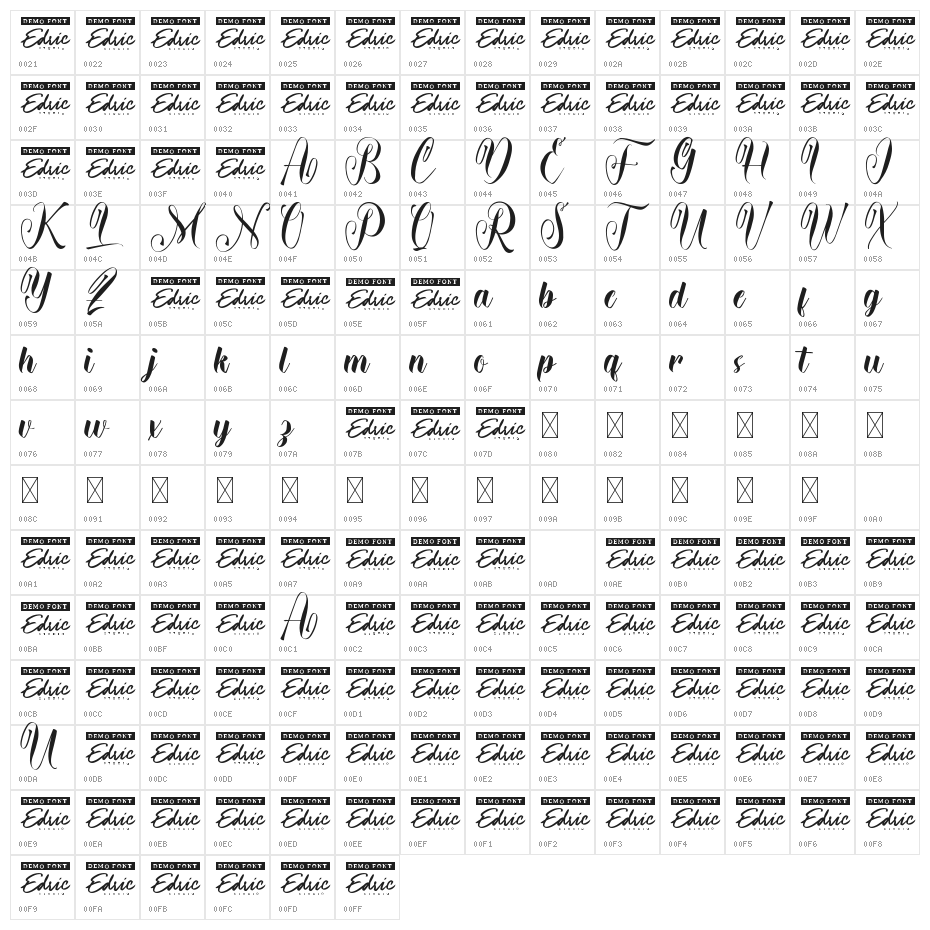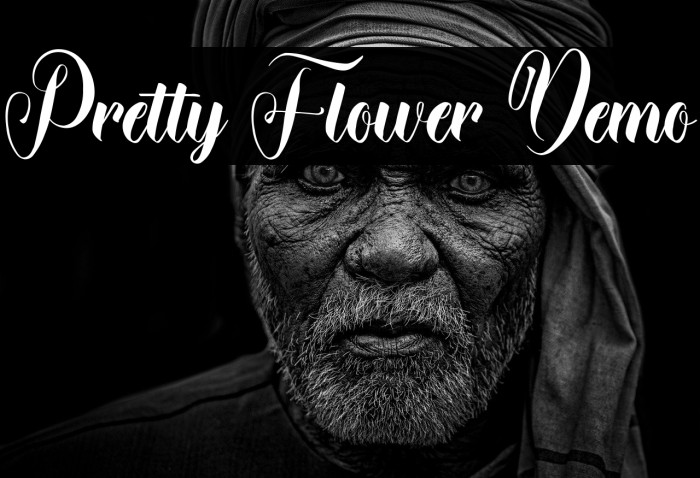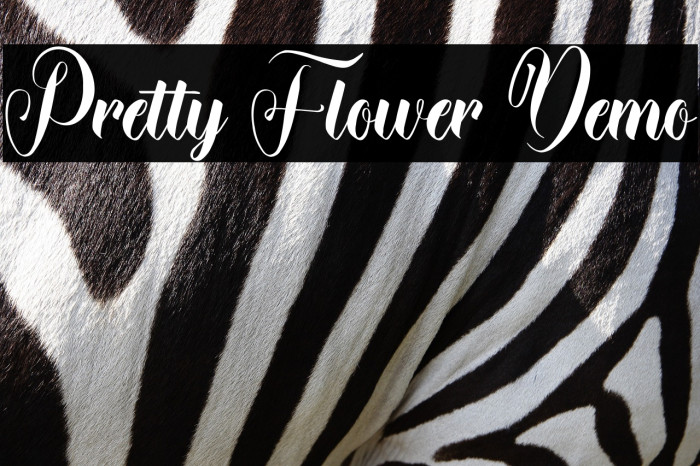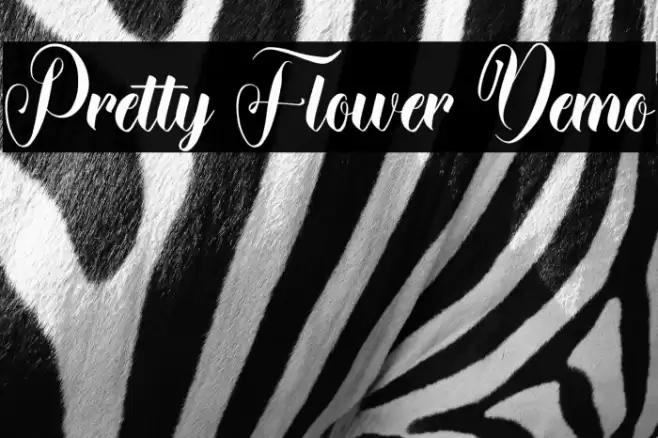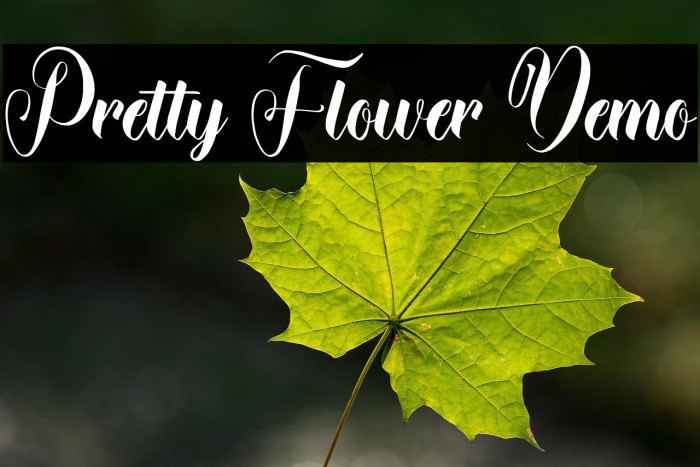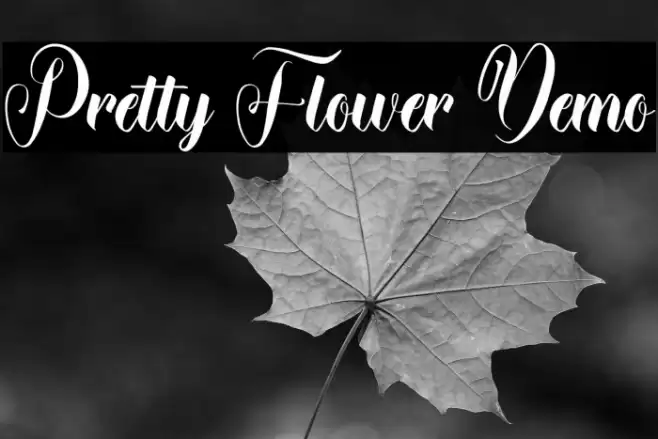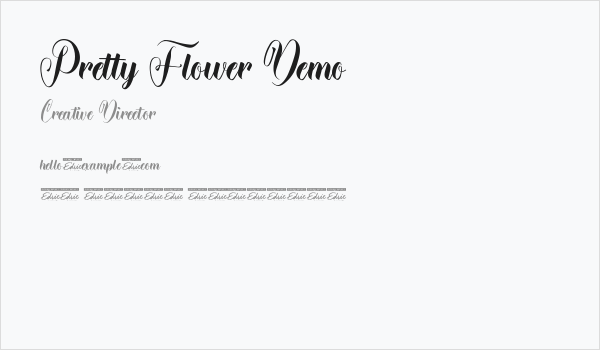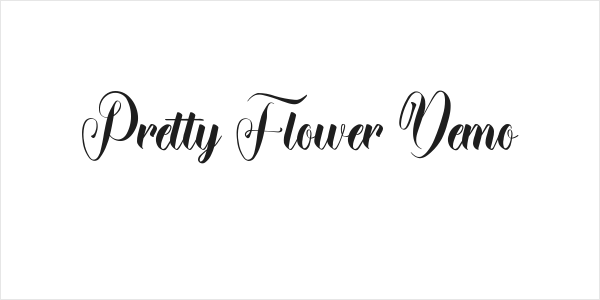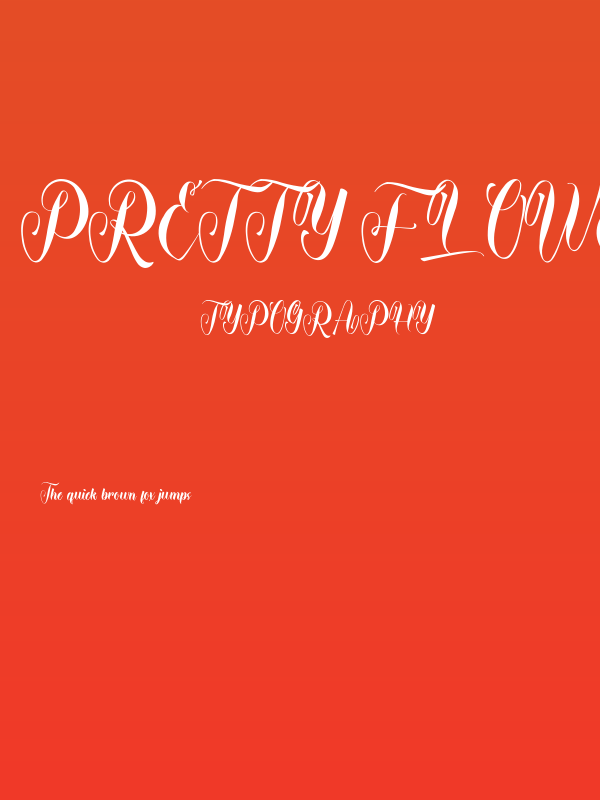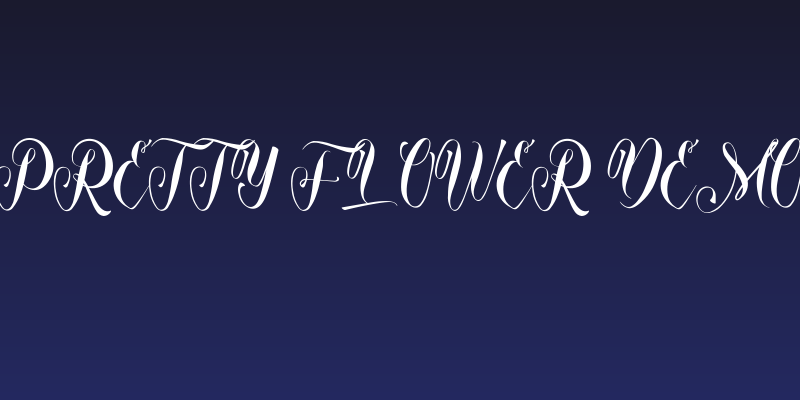
Pretty Flower Demo Font
Pretty Flower Demo Description
This elegant script font features a flowing, cursive style with intricate swashes and loops, giving it a sophisticated and artistic appearance. The uppercase letters are particularly ornate, with exaggerated flourishes that add a touch of luxury and grandeur. The lowercase letters maintain a consistent flow, creating a harmonious and connected look. The font's overall design is both decorative and legible, making it suitable for various creative applications. Its bold strokes and high contrast between thick and thin lines enhance its visual impact, making it ideal for eye-catching designs.